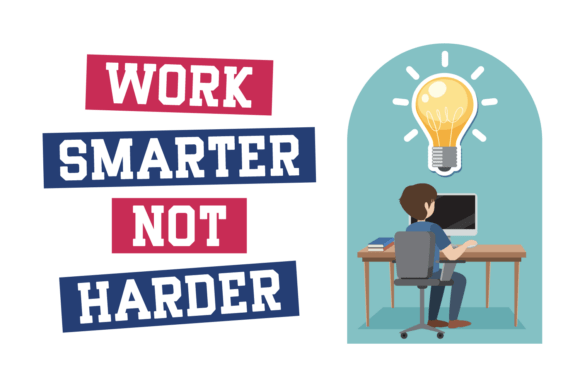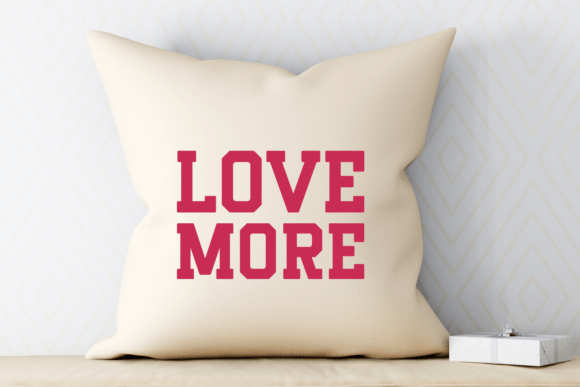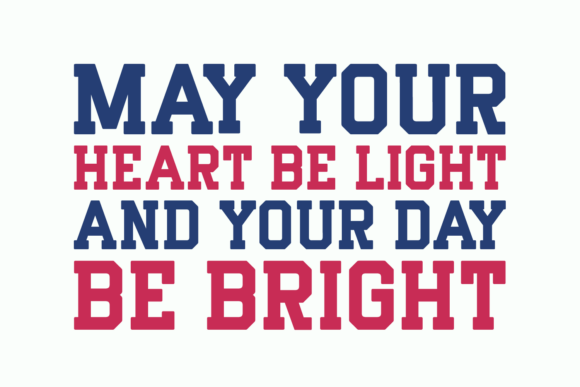
Introduction to Single Album Font
Single Album is a bold slab serif font.
Its a distinctive typeface that embodies the spirit of athleticism and academia Drawing inspiration from the energetic feel of sports and the intellectual environment of universities.
Single Album Font offers exceptional quality and versatility, making it a valuable addition to your design toolkit. Whether you’re creating for personal projects or commercial use, Single Album Font delivers professional results.